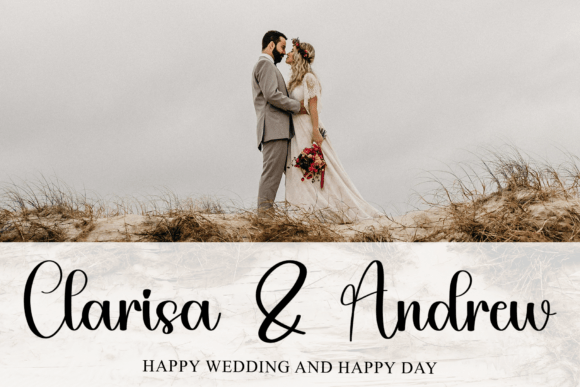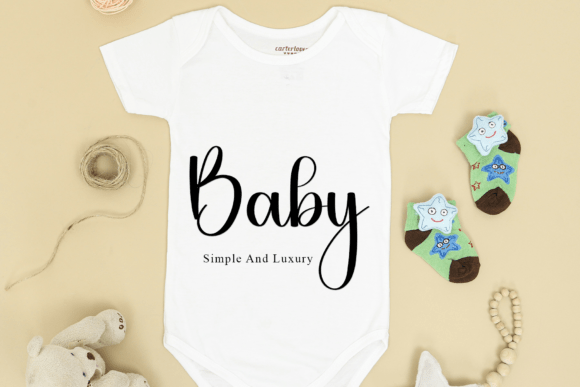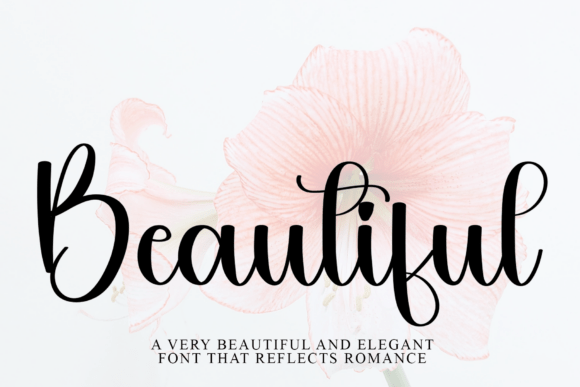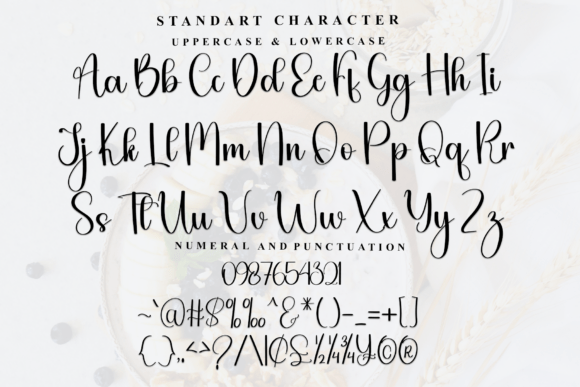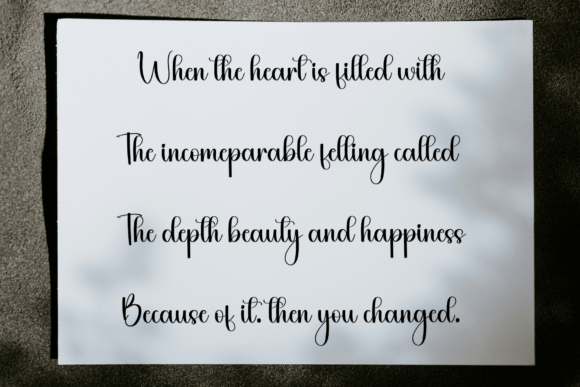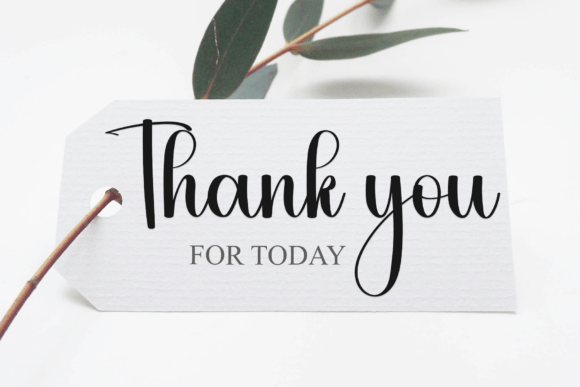
Discovering the Perfect Script: Unwrapping the Clamshell Font
As designers, we’ve all been there – stuck on a project, searching for the perfect font to capture the essence of our vision. It’s a moment of creative frustration, but also an opportunity to discover something truly special. For me, that moment came when I stumbled upon the Clamshell Font, a smooth, handwritten script that instantly transported me to a sun-kissed beach.
Clamshell Font is more than just a pretty face – it’s a versatile tool designed to evoke the carefree spirit of the coast. Perfect for beach quotes, wedding invites, or elegant lifestyle branding, this font adds a touch of sophistication and whimsy to any design. Its value lies not only in its aesthetic appeal but also in its ability to convey a sense of relaxation and joy.
Clamshell Font Key Features
- Font Style: Script, with a unique, connected feel.
- Unique Characteristics: Features a distinctive, flowing script style with a sense of movement and energy.
Designer Review: Clamshell Font
I recently had the chance to work with the Clamshell font, and I must say it’s an interesting choice. Here’s my honest take.
- Unique character set: Clamshell has a distinctive set of characters that immediately grab your attention.
- Expressive feel: The font has a playful, energetic vibe that’s perfect for projects that need a bit of whimsy.
- Wide language support: Clamshell is compatible with a wide range of languages, making it a versatile choice for global projects.
- Readability issues**: While Clamshell is visually striking, it can be difficult to read at smaller font sizes or in low-light conditions.
- Lack of consistency**: The font’s unique character set can sometimes feel inconsistent, which may make it harder to use in certain contexts.
- Not ideal for body text**: Clamshell is best used for headlines or titles, as its expressive feel can be overwhelming for large blocks of body text.
Overall, Clamshell is a great choice for projects that need a bold, eye-catching font. While it may have some limitations, its unique character set and expressive feel make it a standout option.
Tips for Getting the Most Out of Clamshell Font
Here are some tips to help you get the most out of the Clamshell font:
- Use it for titles and headings to add a touch of elegance to your design.
- Pair it with other fonts to create a unique and eye-catching combination.
- Experiment with different font sizes and styles to find the perfect balance for your design.
The Clamshell font is ideal for:
- Formal event invitations and announcements.
- Luxury branding and packaging.